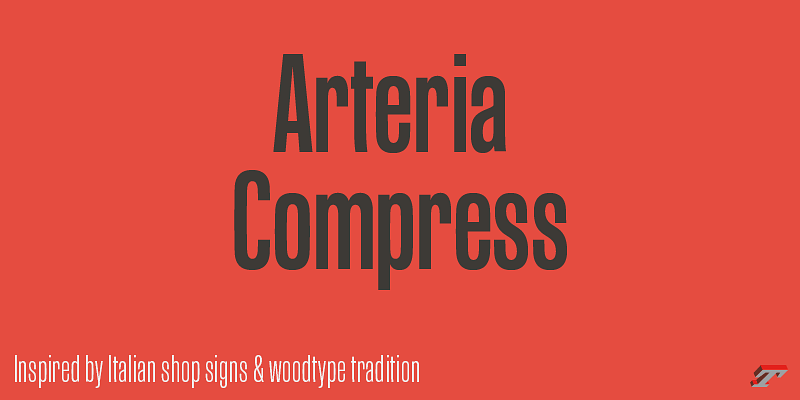
Arteria Compress Font Free Download is a highly condensed display typeface designed for maximum visual impact in tight spaces. With its tall, narrow letterforms and strong vertical presence, this font is perfect for posters, editorial headlines, fashion branding, product packaging, and modern typographic layouts that demand attention.
Arteria Compress Font Free Download delivers a bold, stylish look that’s both sleek and contemporary. Its compressed structure allows you to fit more text in limited space without sacrificing readability—ideal for bold titles, magazine layouts, or urban branding. The font exudes confidence and edge, making it a favorite for high-impact design work.
Its minimal spacing and geometric consistency offer a clean, almost architectural feel, while maintaining an air of sophistication. Arteria Compress pairs well with wide or regular-width fonts to create striking contrast and visual hierarchy in your layouts.